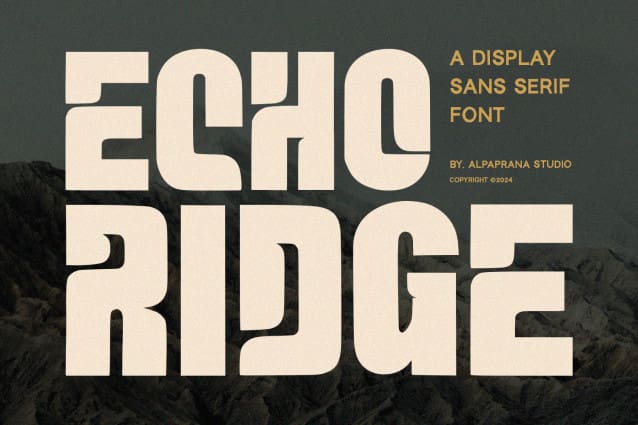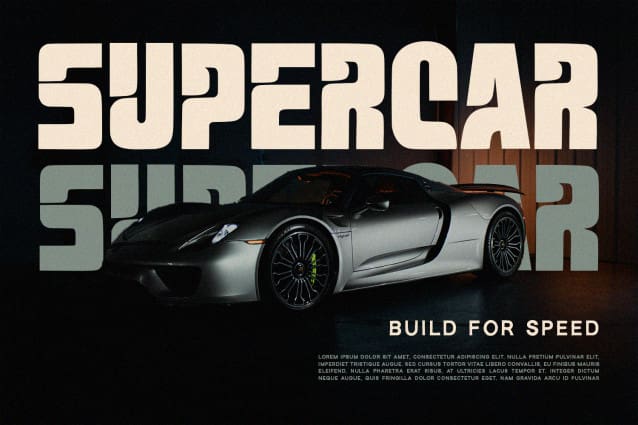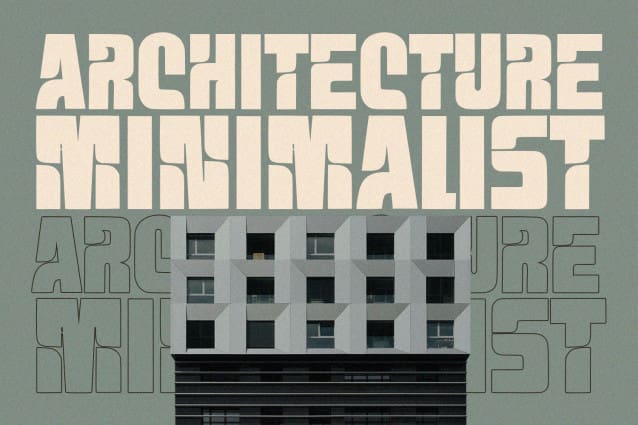
Echo Ridge Font
Echo Ridge Font is a sans serif font with unique and modern feels. It will be perfectly used for Branding, Logo Design, Lettering, Logotype, Clothing, Poster, magazine, packaging, posters, shopping bags, t-shirts, book covers, photography, special events and other design project.